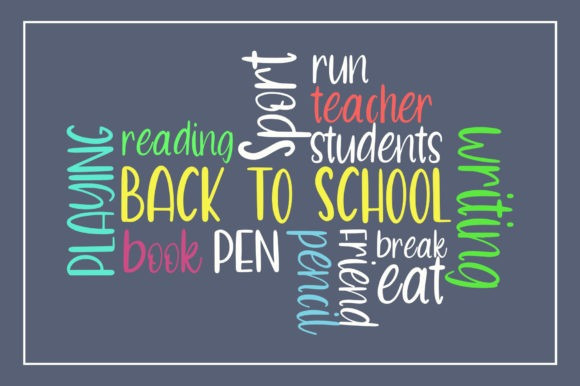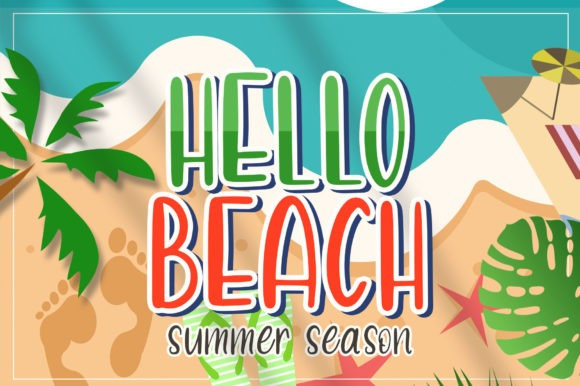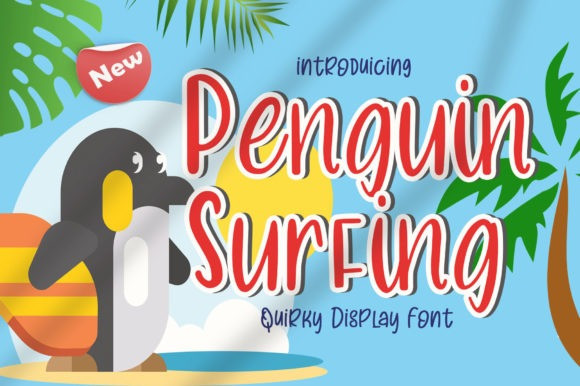
Penguin Surfing Font
Penguin Surfing Display Font is a quirky and playful display font. Suitable to a wide variety of designs due to its neat and simple style, this font has the potential to become your favorite go-to font, no matter the occasion!